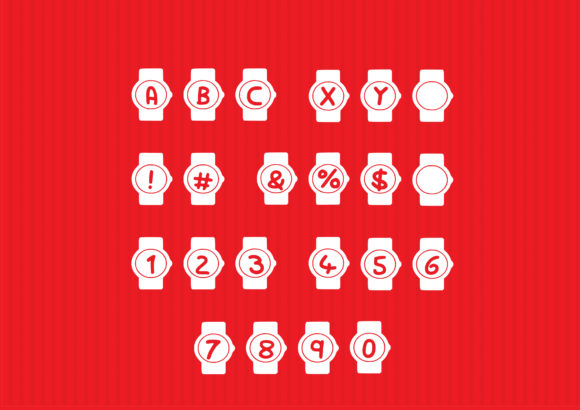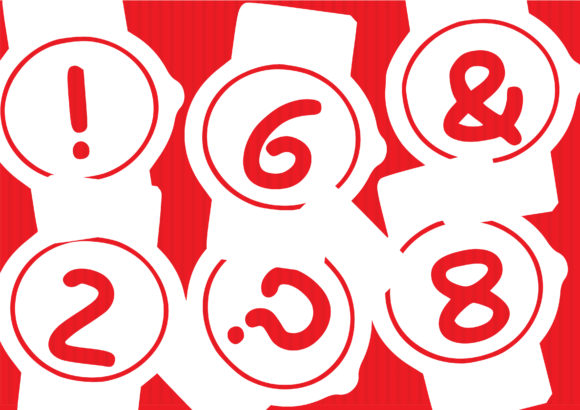
Introduction to Play Watch Font
Remember that moment when you stumbled upon the perfect design element that took your creative project from ordinary to extraordinary? For designers, finding the right font can be the difference between a bland and a breathtaking design. And if you’re looking for a font that’s sure to make a statement, you’re in luck! The Play Watch Font is a fun and quirky decorative font that’s about to become your new go-to design resource.
This unique font features each letter encased in a wristwatch, giving your designs a high-quality, high-tech feel. With a transparent background, you can easily layer it over any image or design element to create a visually striking effect. And the best part? You can download the Play Watch Font for free, making it an essential addition to any designer’s toolkit.
Whether you’re working on a creative project, crafting a personalized gift, or simply looking for a fun design element to spice up your social media posts, the Play Watch Font is sure to deliver. So why settle for a bland design when you can add a touch of whimsy and personality with this fantastic font?
Key Features of Play Watch Font
- High-quality design with intricate details, ideal for creative projects.
- Transparent background, allowing for easy customization and blending with other design elements.
- Comes in a single size, but scalable to any resolution, ensuring crisp and clear display on various devices.
- Unique characteristics, such as the watch-inspired design, add a touch of creativity to any project.
- Designed to be versatile, suitable for use in logos, branding, typography, and other creative applications.
Honest Review: Play Watch Font
As a designer, I’m always on the lookout for high-quality fonts that can elevate my creative projects. I recently stumbled upon the Play Watch Font, and I have to say, it’s a great addition to my design resource library.
- ✨ The font’s clean and modern design makes it perfect for a variety of creative projects, from digital displays to print materials.
- ✨ The transparent background option allows for seamless integration with any design element, giving me complete flexibility.
- ⚠️ The font may not be suitable for projects that require a more formal or traditional tone.
- ⚠️ The font’s simplicity may make it less effective for complex or detailed designs.
Overall, I’m impressed with the Play Watch Font’s versatility and ease of use. While it may have some limitations, it’s a valuable addition to any designer’s toolkit. With its modern design and transparent background option, it’s perfect for a wide range of creative projects. I’d definitely recommend it to fellow designers looking for a high-quality font to add some flair to their designs.
Tips for Getting the Most Out of Play Watch Font
For the best results, use the Play Watch Font in a creative project where its unique design can shine. Experiment with different styles and sizes to find the perfect look for your design. The transparent background of the font allows for endless possibilities.
The Play Watch Font is perfect for use in logos, social media graphics, and advertisements. Its high quality design and transparent background make it a valuable resource for designers and non-designers alike. The free download option makes it easy to access and use in any creative project.